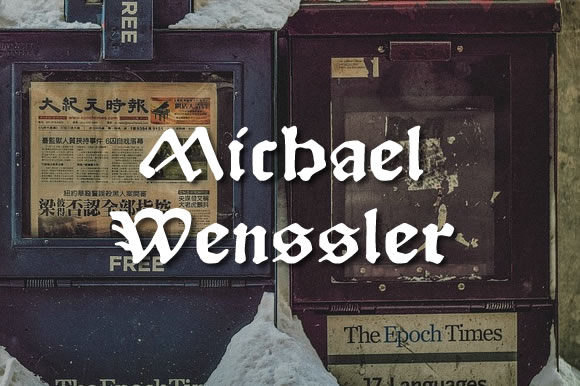
Journey back in time to the era of the great scribes with Michael Wenssler Font, a captivating blackletter typeface that breathes life into your designs. Inspired by the works of the renowned 15th-century printer from Basel, Switzerland, this font is a testament to the beauty and elegance of the bygone era.
Immerse yourself in the rich history and artistry of Michael Wenssler Font. Each letter, meticulously crafted with a round and broad feel, carries the essence of a bygone era. The pleasing decorative elements that adorn the characters add a touch of sophistication and charm, setting this font apart from the ordinary.
Transport your readers to a world of elegance and intrigue with Michael Wenssler Font. Its distinctive style adds a touch of magic to any project, whether it's a vintage-inspired poster, a captivating book cover, or an enchanting invitation. The possibilities are endless, bound only by your imagination.
Unleash your creativity and let the words flow effortlessly with Michael Wenssler Font. Its smooth curves and delicate details invite you to explore new realms of expression, adding a touch of class and sophistication to your designs. Discover the beauty of yesteryear and embrace the timeless appeal of this remarkable typeface.
Step into the world of Michael Wenssler Font and experience the allure of the past. This font is not just a collection of characters; it's a gateway to a world of elegance, intrigue, and boundless creativity. Immerse yourself in its beauty and let your designs shine with the brilliance of a bygone era.
Elevate your designs to new heights with Michael Wenssler Font. Its unique charm and timeless appeal will captivate your audience, leaving a lasting impression that speaks volumes about your attention to detail and appreciation for the finer things in life. Embrace the legacy of Michael Wenssler and let your designs flourish with the grace and elegance of a master printer from centuries past.